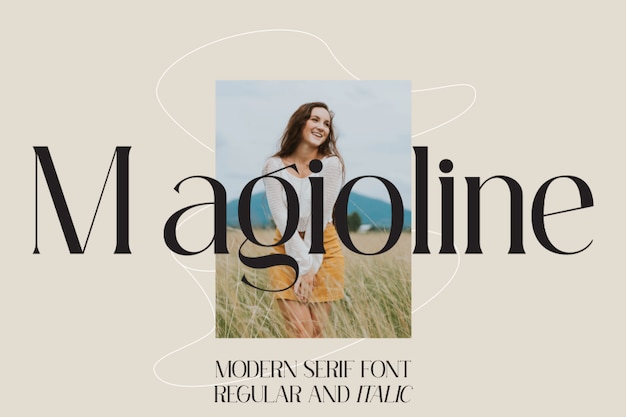
Magioline Font
Magioline is a modern, elegant font characterized by its sleek, straight lines and subtle joining of letter parts, creating a smooth, unified look. Each character flows gracefully into the next, giving it a minimalist aesthetic that balances structure and sophistication. Ideal for contemporary designs, Magioline’s refined style adds a touch of understated luxury.